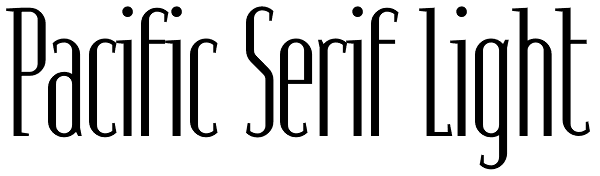
Pacific Serif
The Pacific Sans and the Pacific Serif originated from the Pacific Standard, a space effective type face, especially designed for poster lettering. The implementation of serif strokes in the Pacific Serif and the contrast in vertical and horizontal...
Pacific Serif Light
Pacific Serif Bold